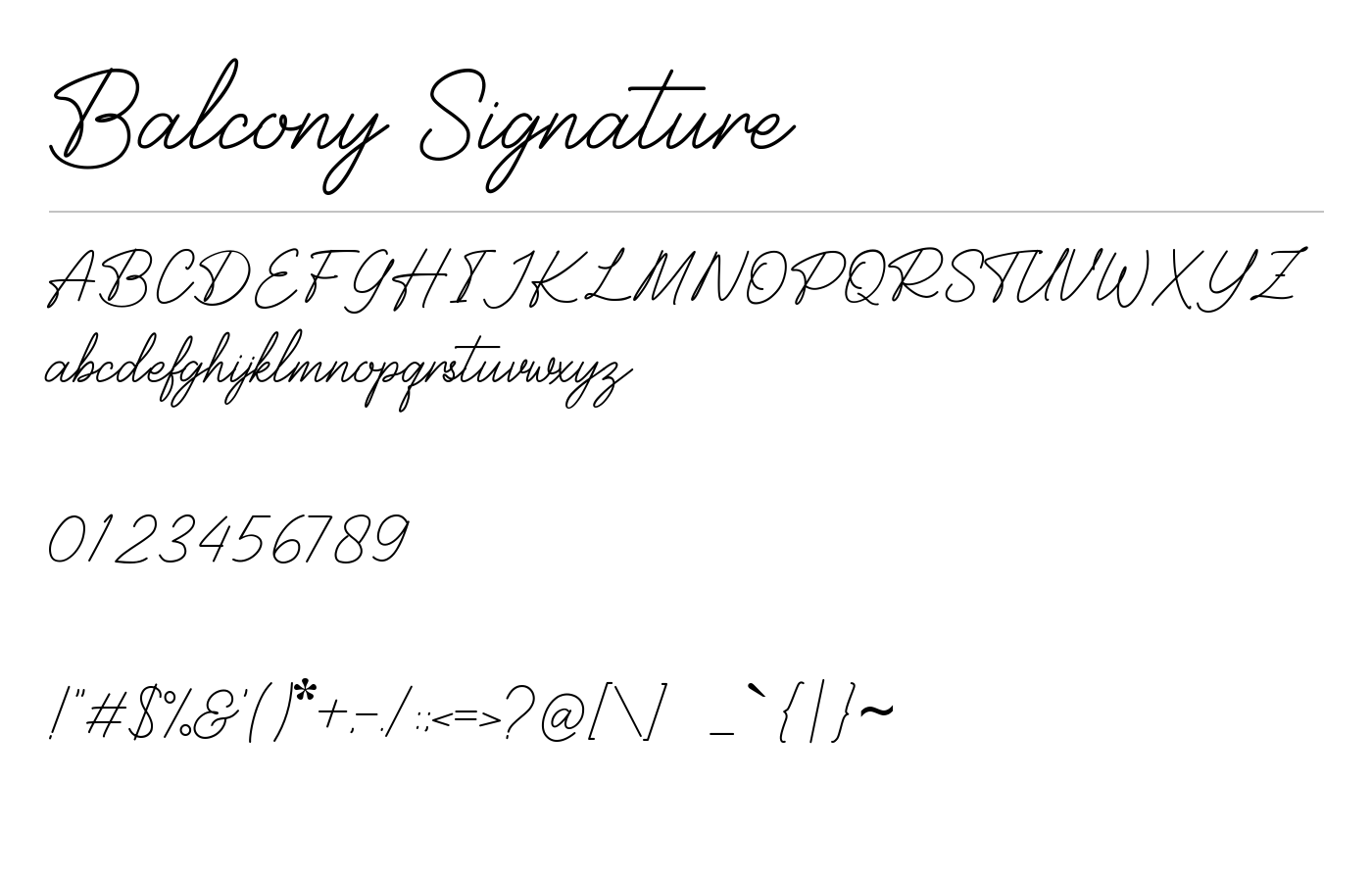
Balcony Signature is a delicate, handwritten script font with slender, flowing strokes that mimic elegant penmanship. Its light weight and graceful curves make it ideal for adding a personal, sophisticated touch to branding, invitations, and stylish editorial design. This font’s airy and refined appearance works especially well for fashion, luxury, and creative projects seeking a natural yet polished feel.
Balcony Signature Font
About Balcony Signature Font
| Font family | Balcony Signature Font |
| Designer | Nofi Sofyan Hadi |